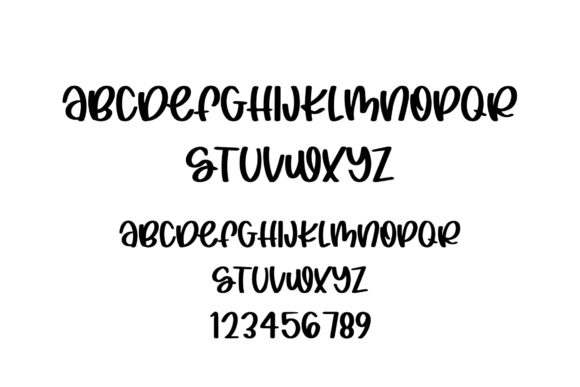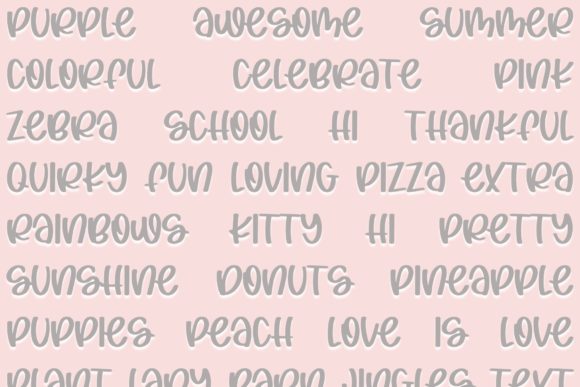
Introduction to Gerber Daisy Font
Have you ever stumbled upon the perfect design resource that makes your creative project pop? For designers, finding that one special font can be a game-changer. I still remember the excitement I felt when I discovered the Gerber Daisy Font – a cute and casual handwritten font with an incredibly friendly feel.
As I browsed through the font’s features, I knew I had to share it with fellow designers. Whether you’re looking to elevate your Instagram posts or create beautiful calligraphy scripts for DIY projects, the Gerber Daisy Font is sure to bring your ideas to life. With its high-quality design and transparent background, this font is a valuable addition to any designer’s toolkit.
- Unique, playful font with a transparent background, perfect for adding a touch of whimsy to your designs.
- Designed to be highly legible, making it an excellent choice for body text and headings in creative projects.
Honest Review: Gerber Daisy Font
I recently had the chance to dive into the Gerber Daisy Font, and I’m excited to share my honest thoughts with fellow designers.
What works well: ✨ The Gerber Daisy Font is a high-quality design resource that offers a unique, playful aesthetic perfect for creative projects that need a touch of whimsy. The font’s transparent background makes it easy to layer and combine with other design elements.
Overall, I’m impressed with the Gerber Daisy Font’s potential for adding a creative spark to various design projects. With its free download option and high-quality design, it’s an excellent resource for designers looking for a unique, playful font.
- Unique, playful aesthetic
Use the Gerber Daisy Font in creative projects, such as wedding invitations, baby shower decorations, or social media graphics. Experiment with different font sizes, colors, and styles to create a unique and eye-catching design.
The Gerber Daisy Font is ideal for any design project that requires a bright, cheerful, and playful touch. Use it in craft projects, party decorations, or social media posts to add a pop of color and energy.